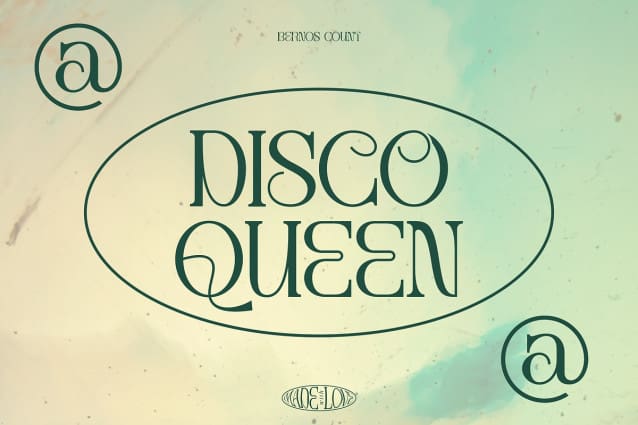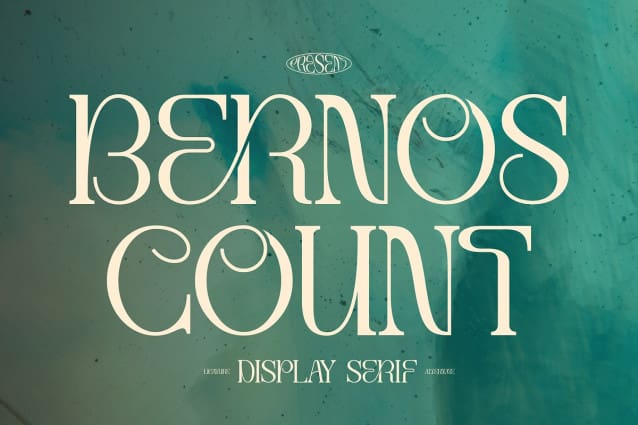
Bernos Count Font
Bernos Count Font | Display Serif Font, from Denustudios, suitable for any projects such as: logos, branding projects, homeware designs, product packaging, mugs, quotes, posters, shopping bags, t-shirts, book covers, name card, invitation cards, greeting cards, label, photography, watermark, special events, and all your other lovely projects that need a Display Serif Font taste.